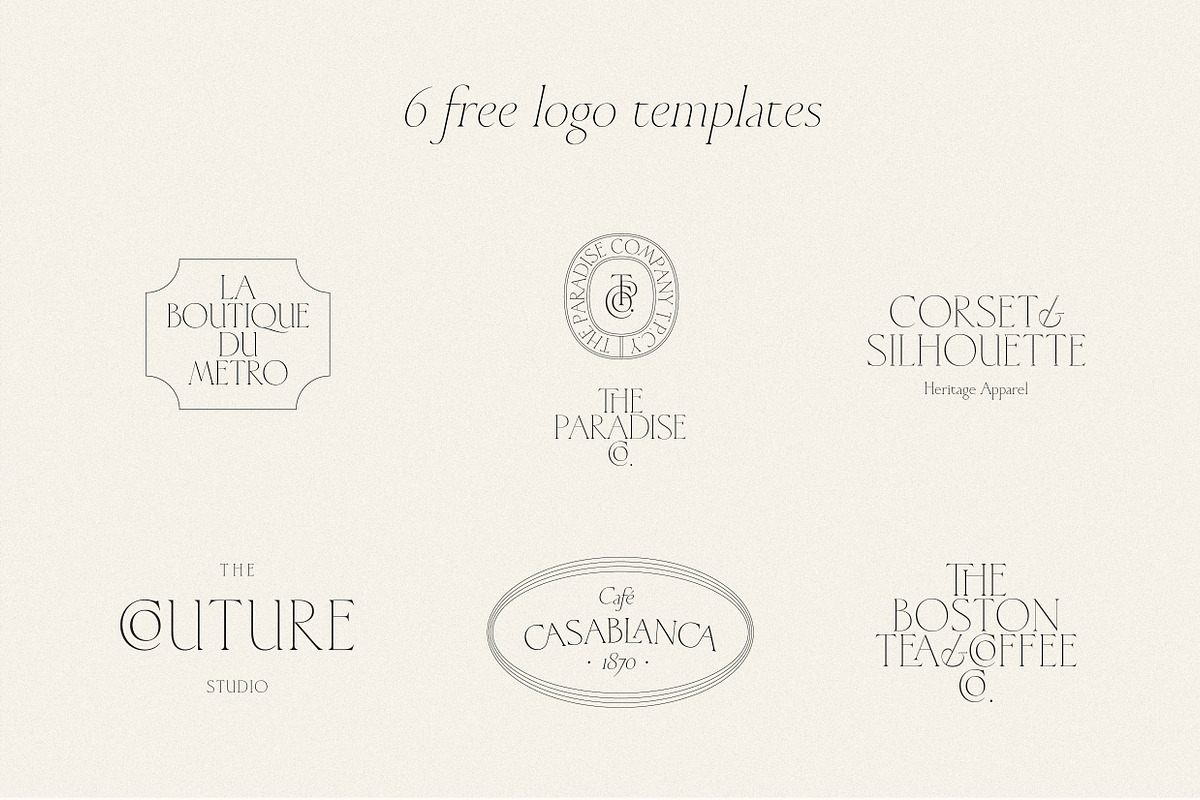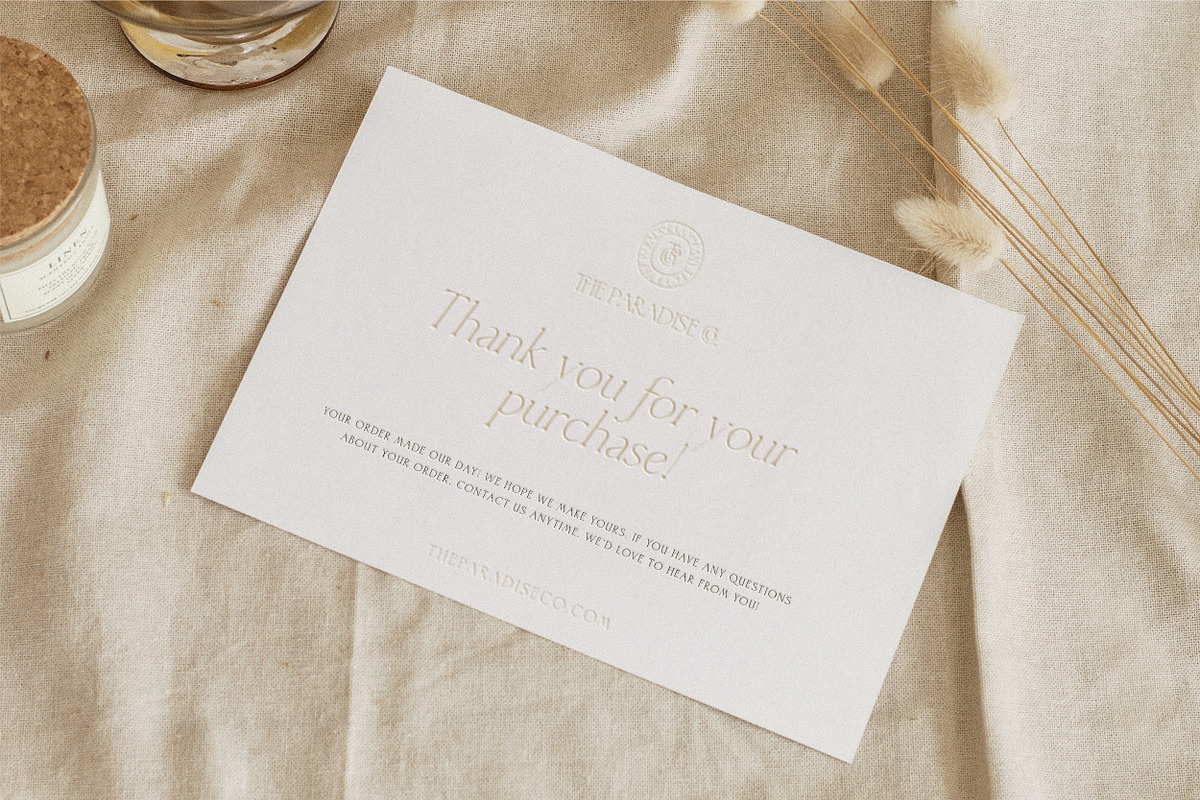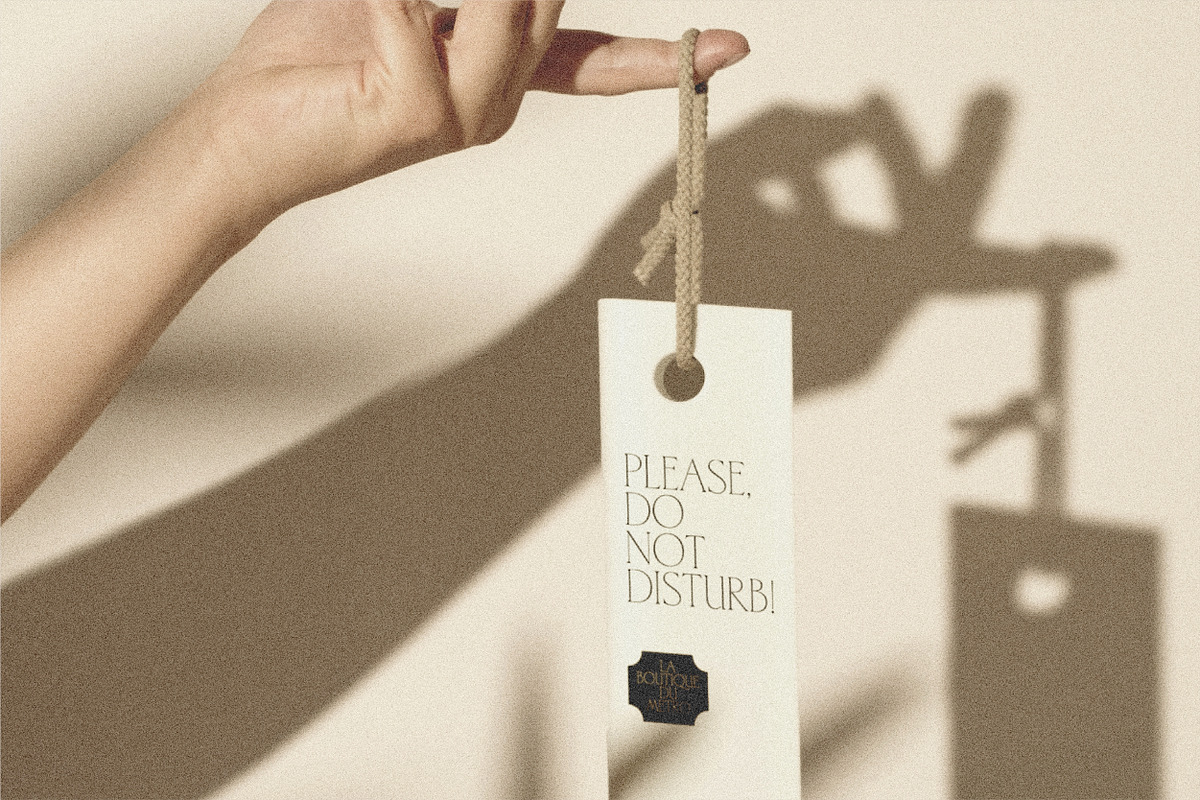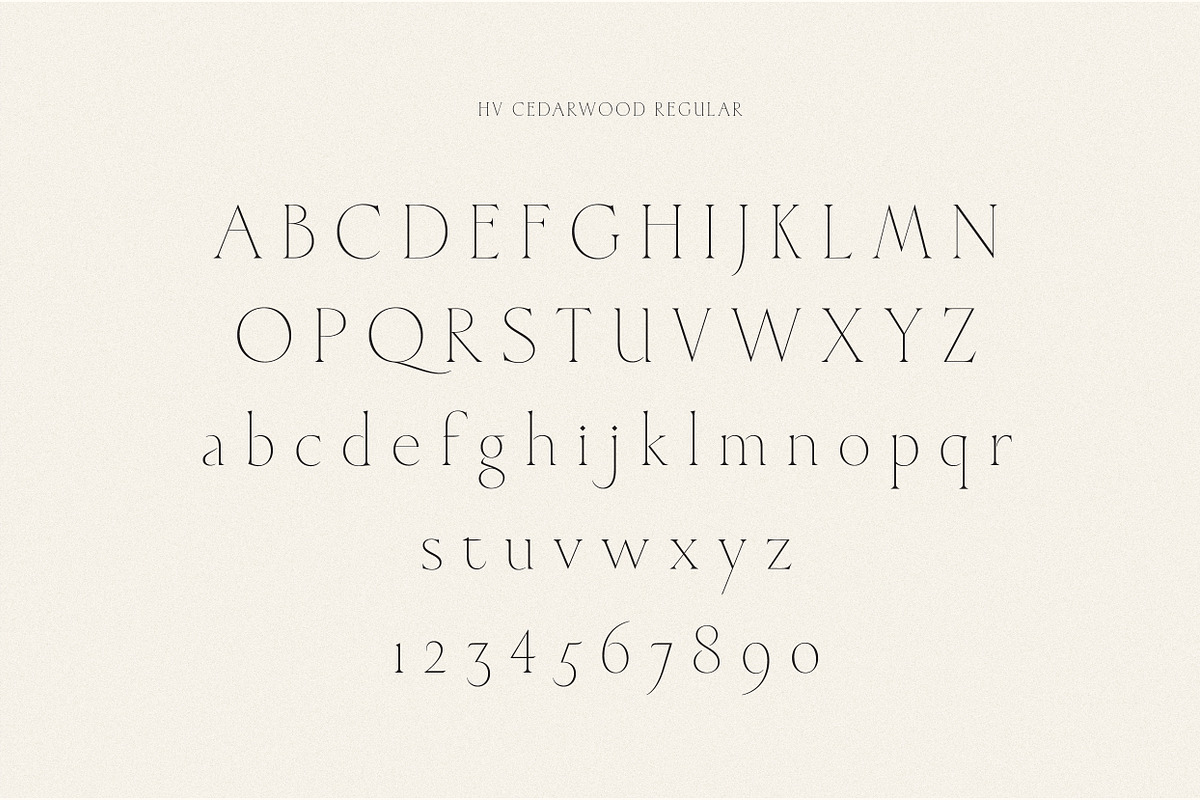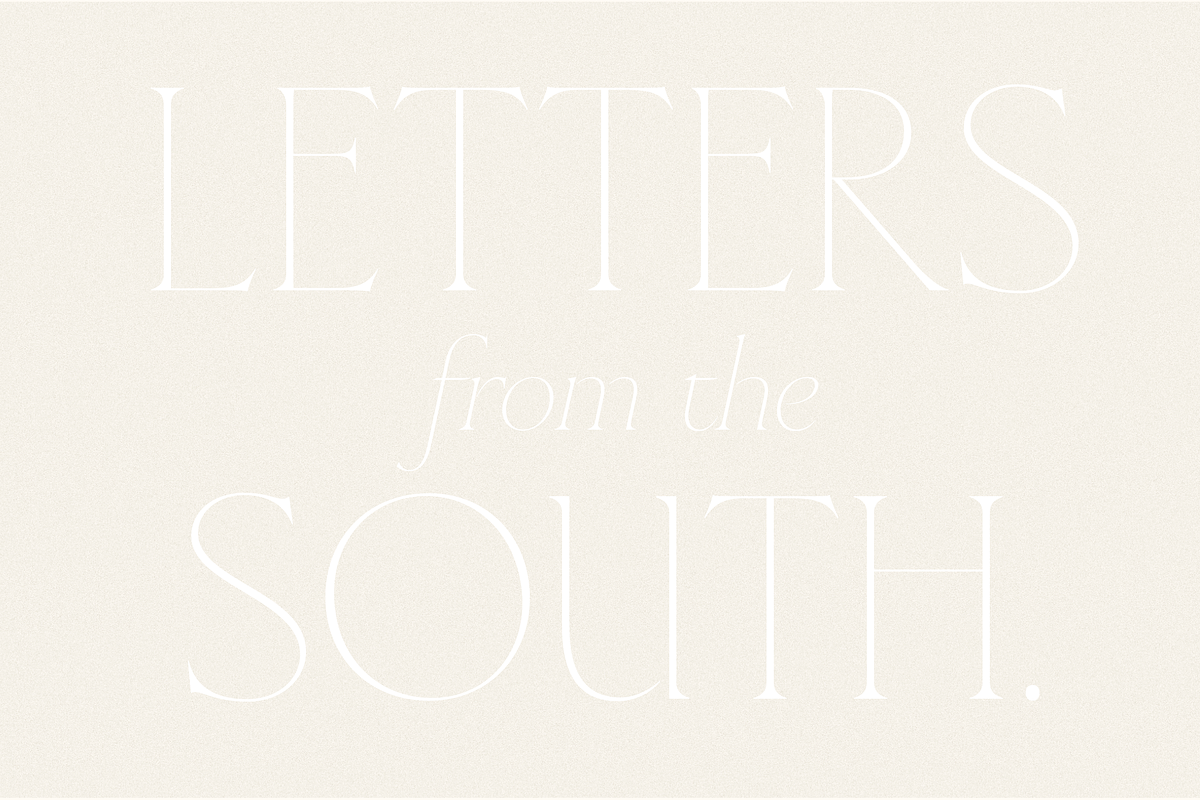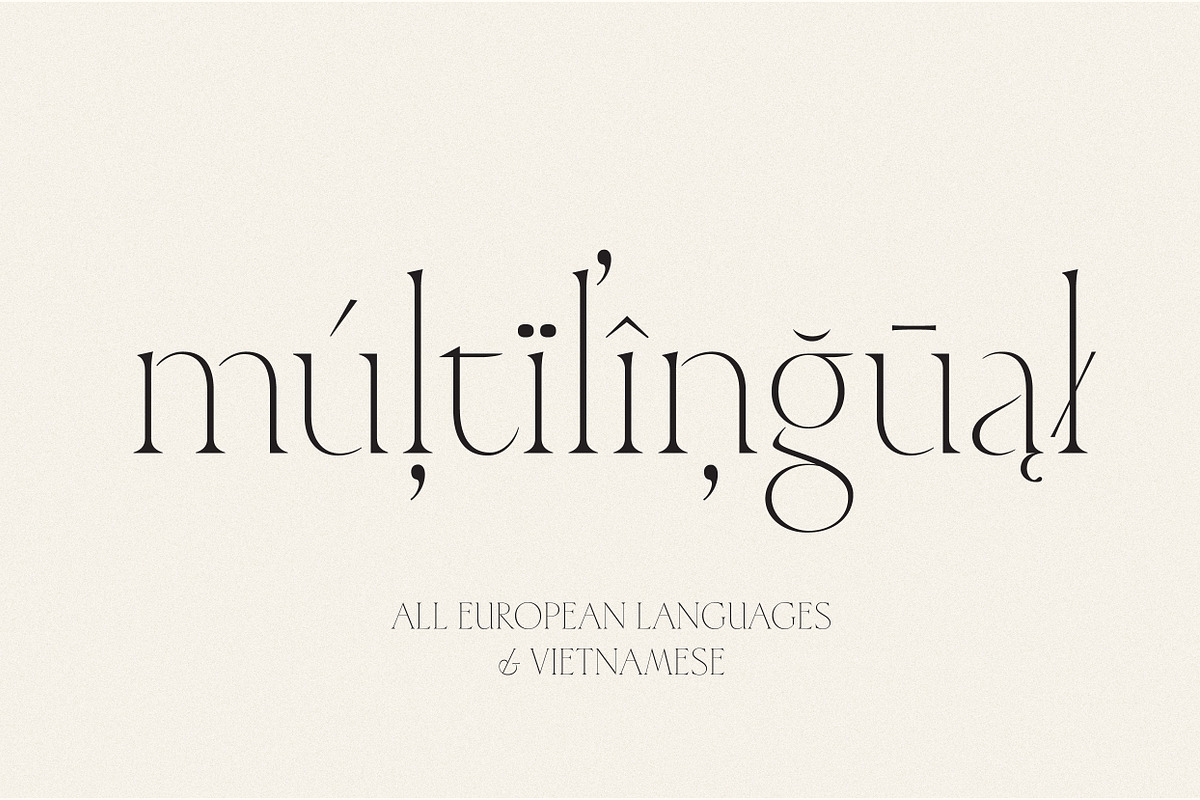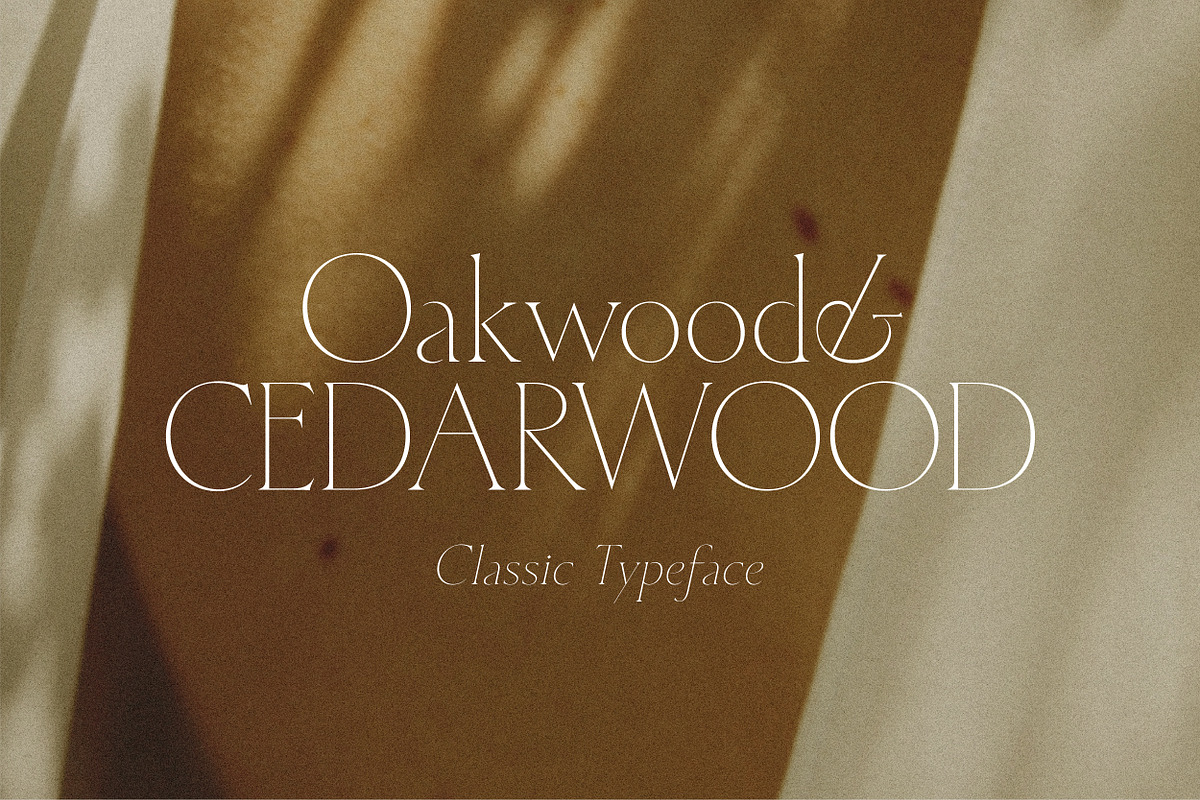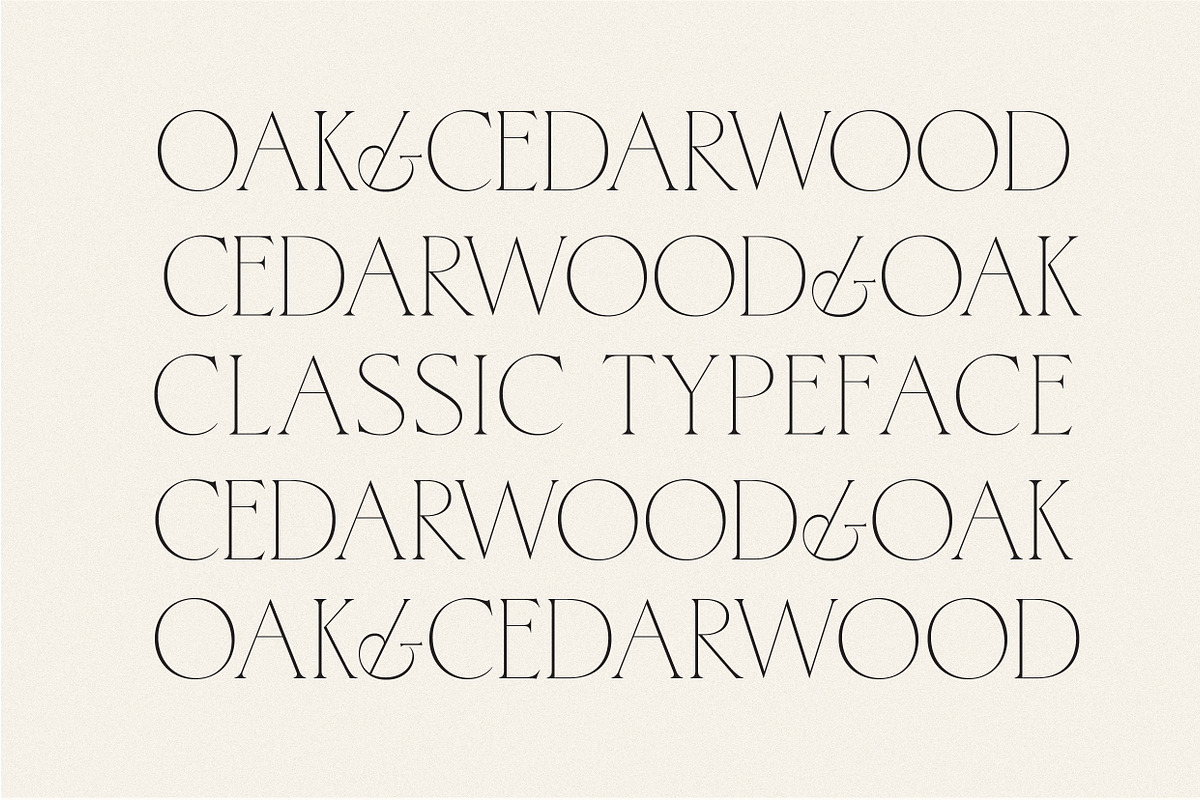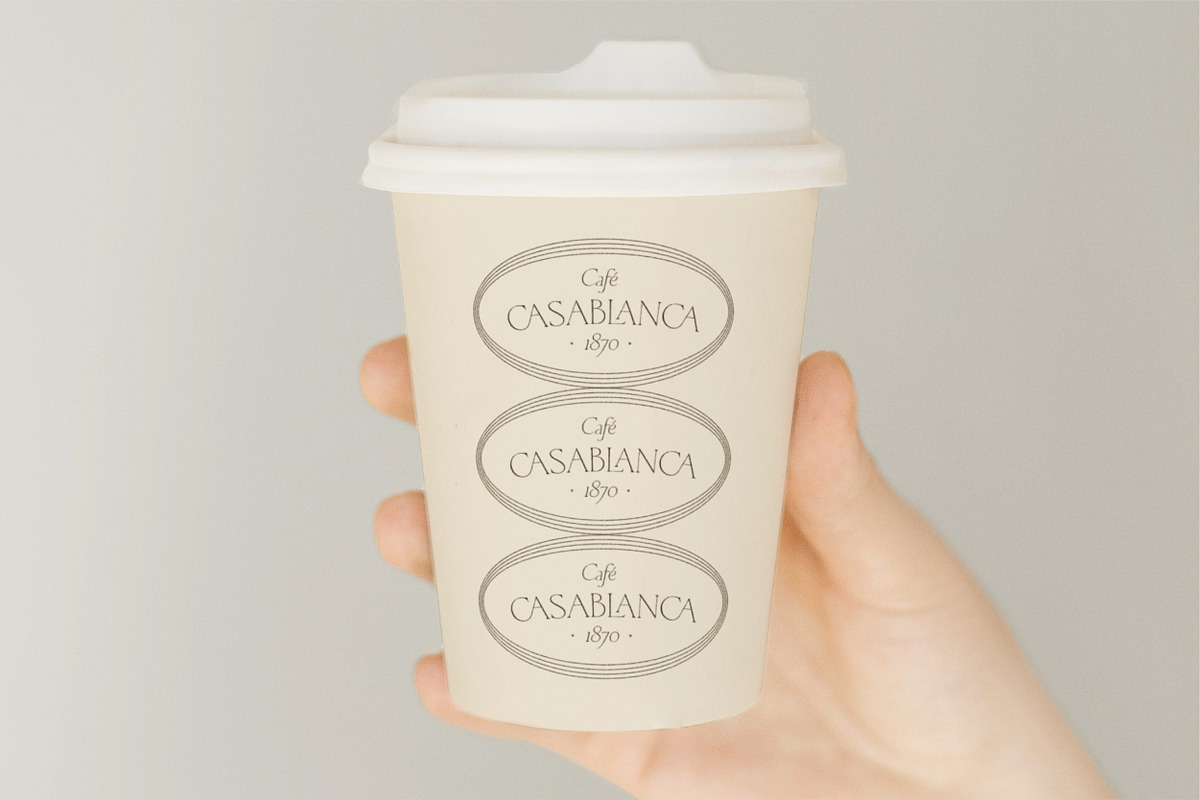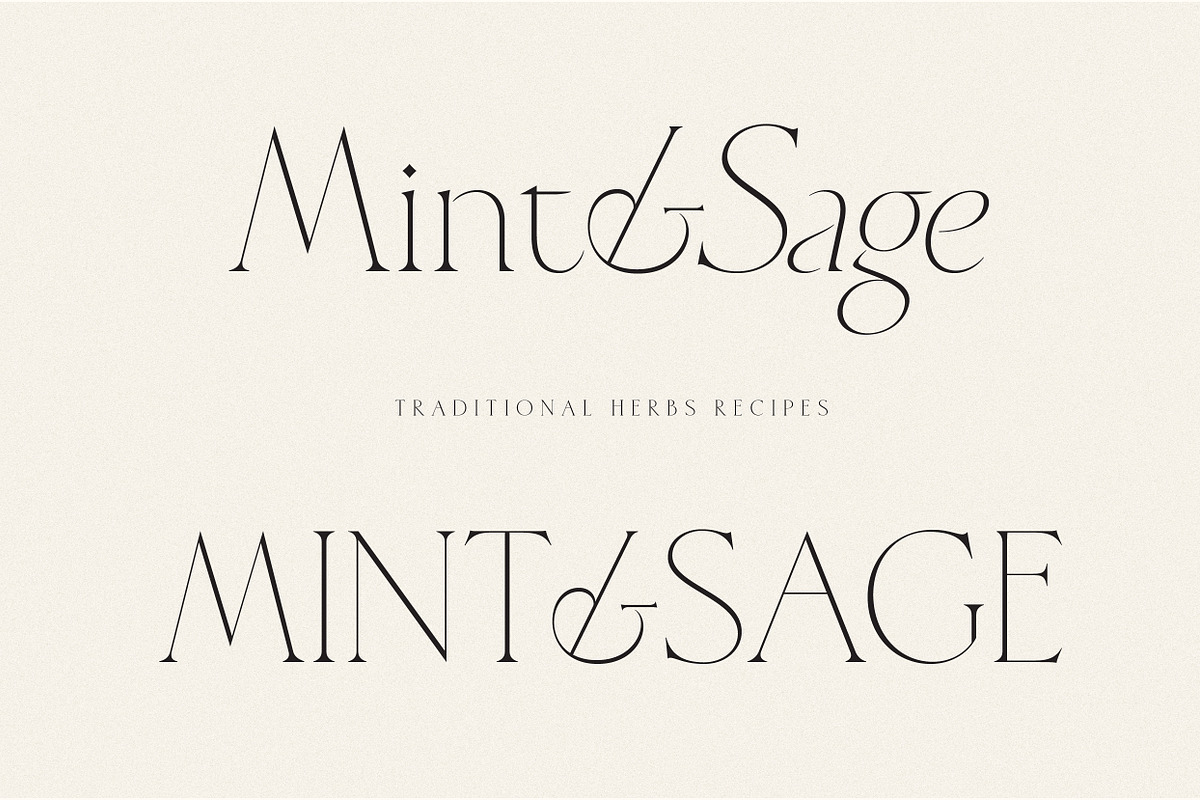
Cedarwood - Classy Serif
Cedarwood is a classic serif with a regal, elegant touch. Inspired by the work of the old masters, Cedarwood is perfectly suitable for creating classy yet still elegant designs such as logos, packaging, editorial, and more.
Europeans languages
Vietnamese